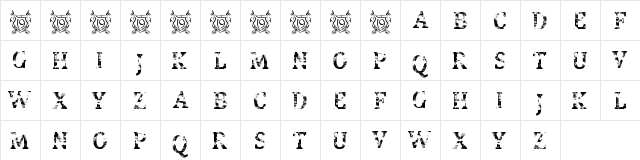
Street Blues Trial Regular Font Preview
Street Blues Trial Regular
Design Context for Street Blues Trial Typeface
Street Blues Trial is a composed and adaptable typeface that performs quietly and consistently across a wide range of design contexts.